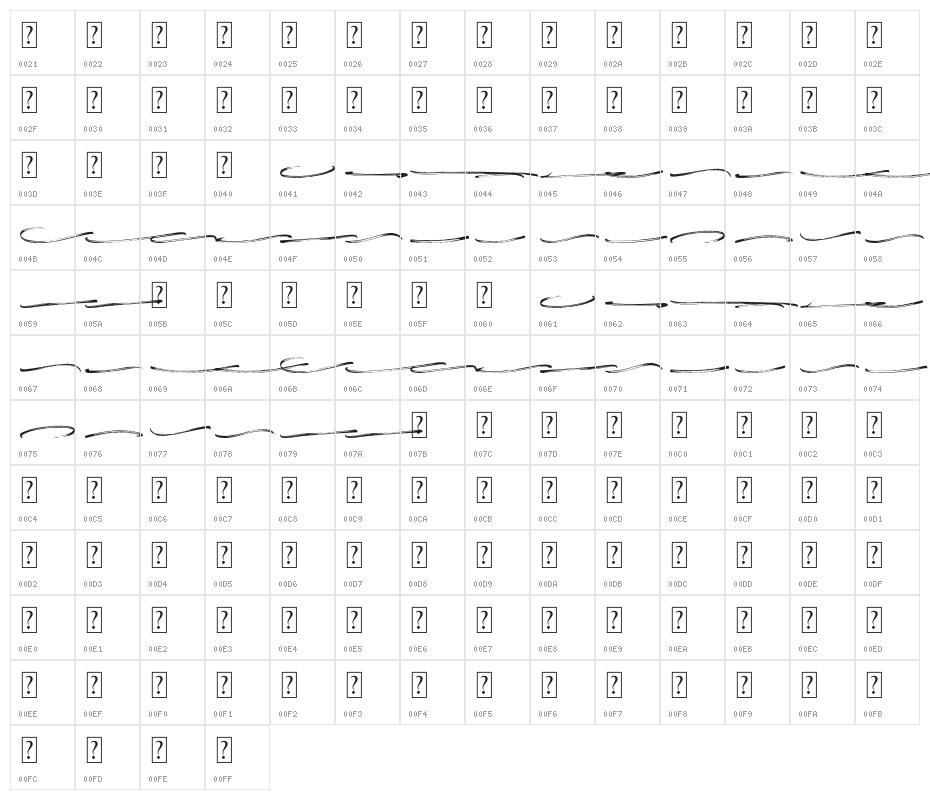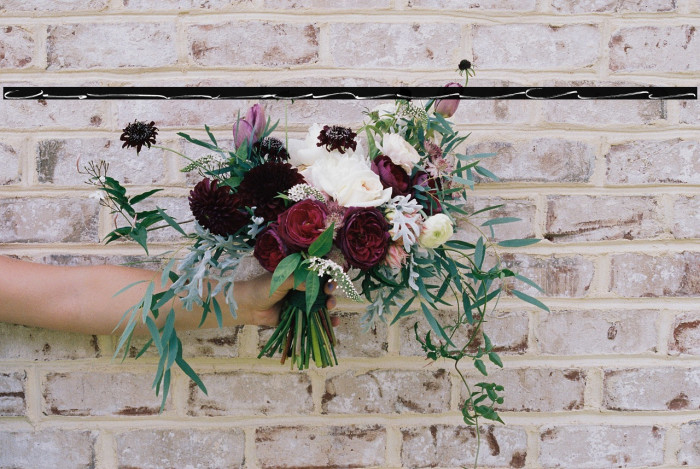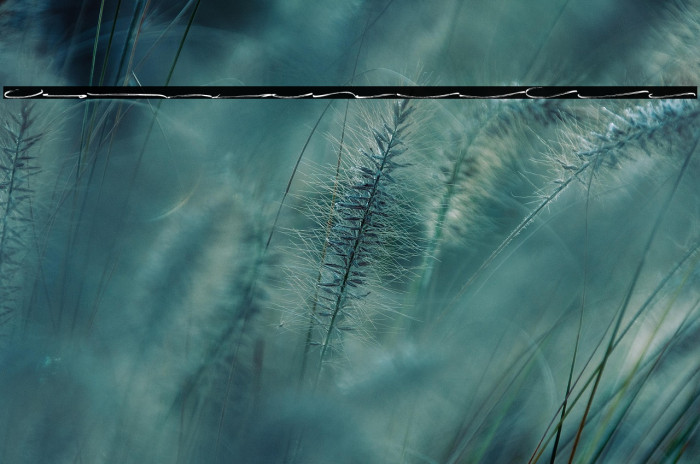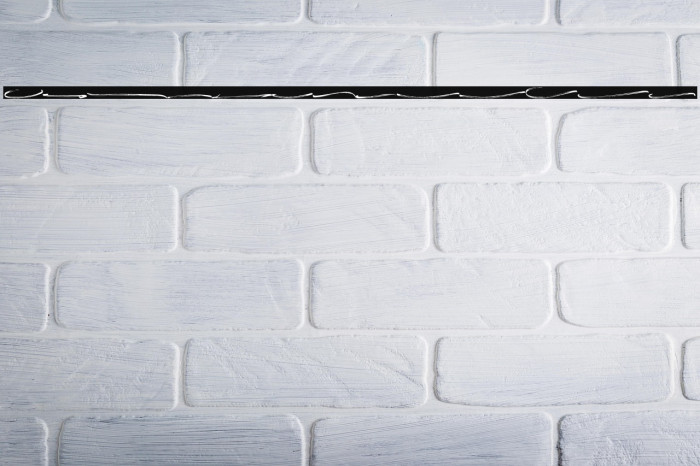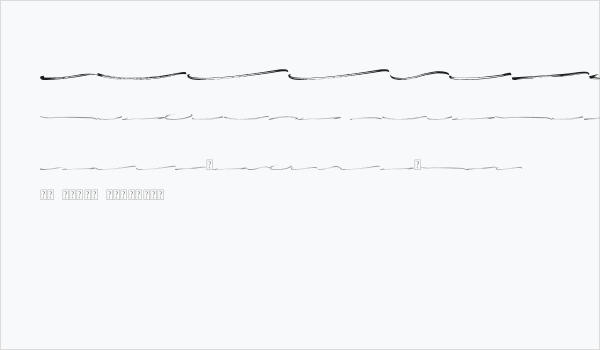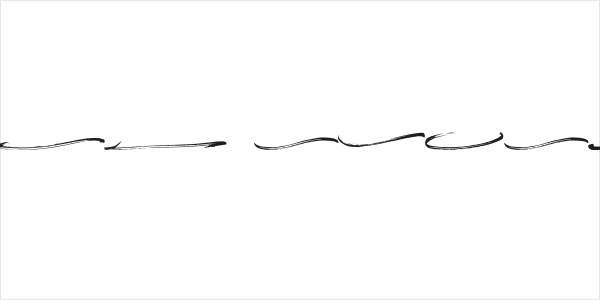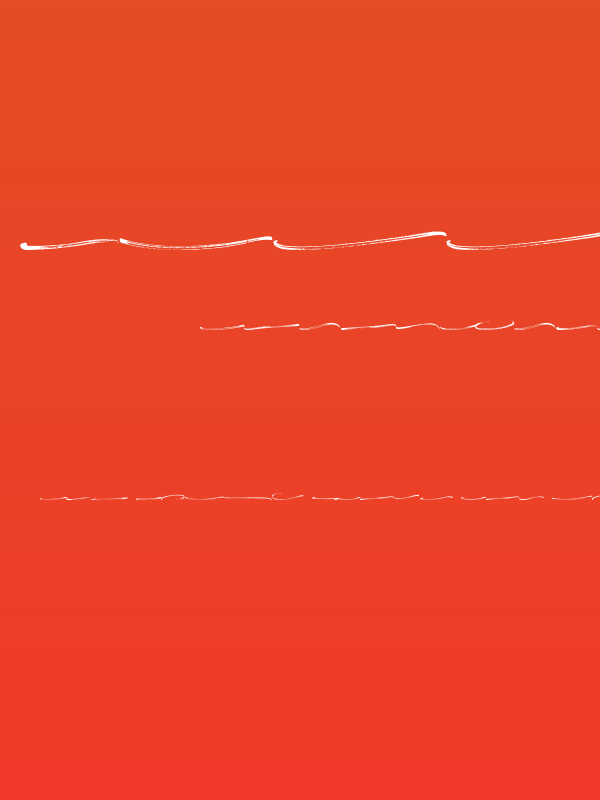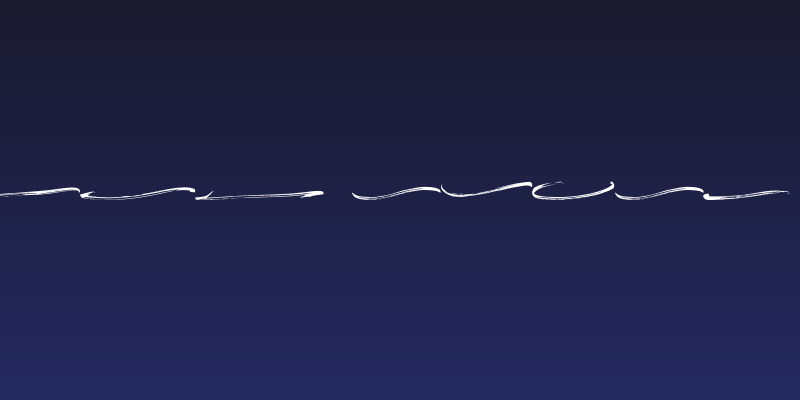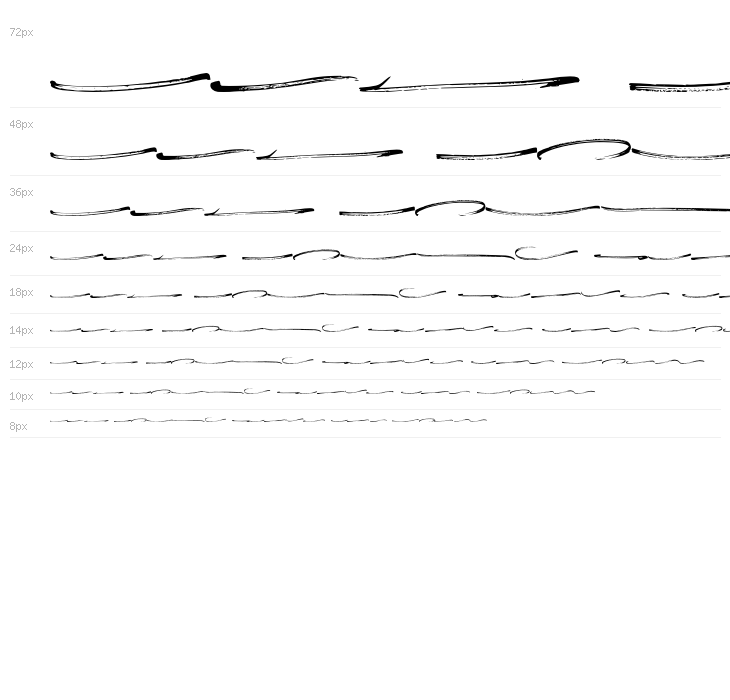
Hillstone swash Demo FPU Font
Hillstone swash Demo FPU Description
This font features a delicate and elegant script style with graceful, flowing lines that mimic the fluidity of handwriting. The characters are connected in a continuous manner, giving it a cohesive and seamless appearance. The strokes vary in thickness, adding a dynamic and lively feel to the text. This font exudes a sense of sophistication and charm, making it ideal for projects that require a personal and artistic touch. The overall design is both classic and modern, suitable for a variety of creative applications.
| Overall Style | Elegant, Artistic |
| Proposed Projects | Ideal for wedding invitations, greeting cards, personal branding, and artistic projects. |